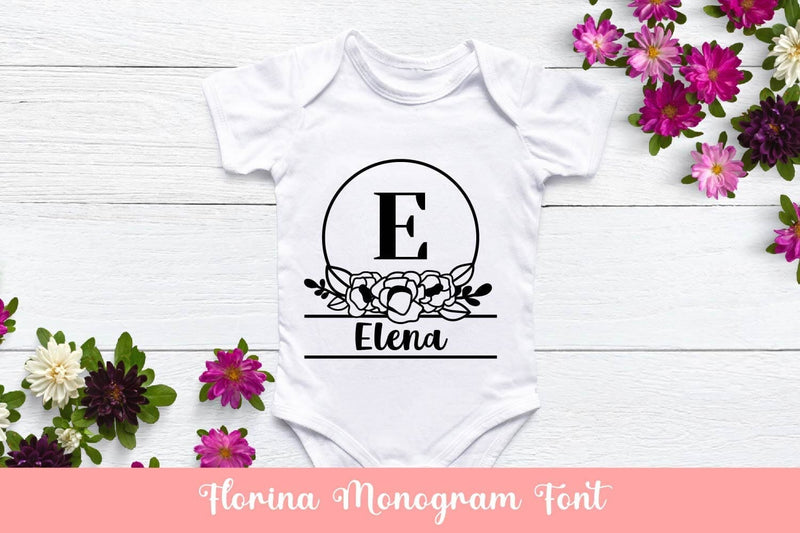
Florina Monogram Font Free For Commercial Use is tailored for t-shirt, floral shirt, baby monogram, Mom floral monogram, mommy monogram, floral monogram Cut File, floral monogram font print, floral monogram font Gift, font for cricut cut file, Craft Supplies & Tools, hobby, cards, invitations, cut files, posters, packaging, printable wall art, crafts projects and so on.